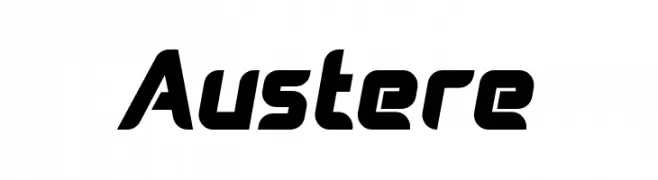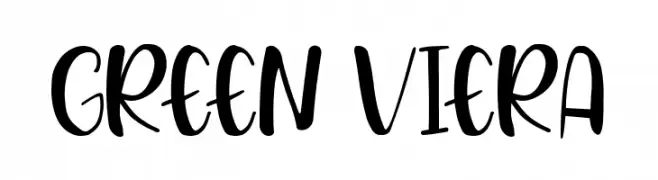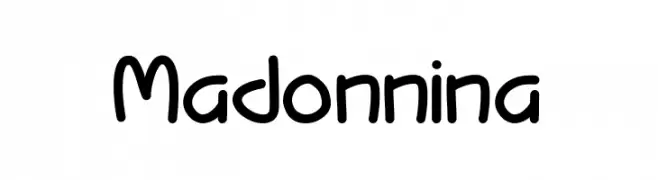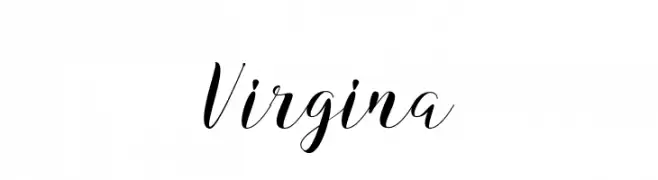
An elegant and sophisticated cursive font with ornate flourishes.
A dynamic, cursive script font with fluid, expressive strokes.
A bold, decorative font with intricate details and a strong presence.
A bold, dynamic brush script font with fluid, interconnected strokes.
A bold, dynamic font with a futuristic and sporty style.
A playful, rounded font with a hand-drawn, whimsical style.
A modern, rounded sans-serif font with a clean and approachable style.
A flowing, elegant script font with interconnected letters and ornate swashes.
A playful, casual script font with flowing, connected letters.
A bold, playful script font with flowing, hand-drawn letterforms.